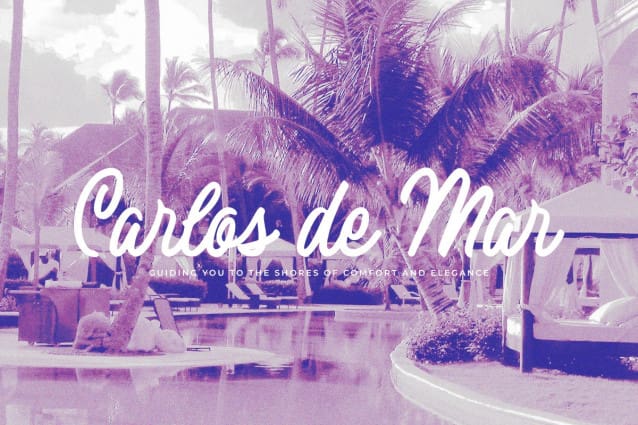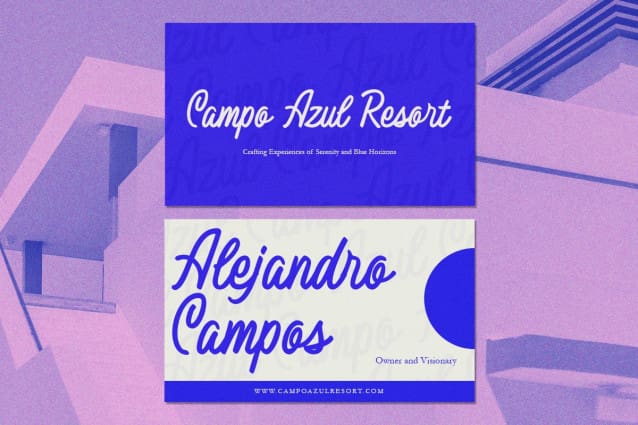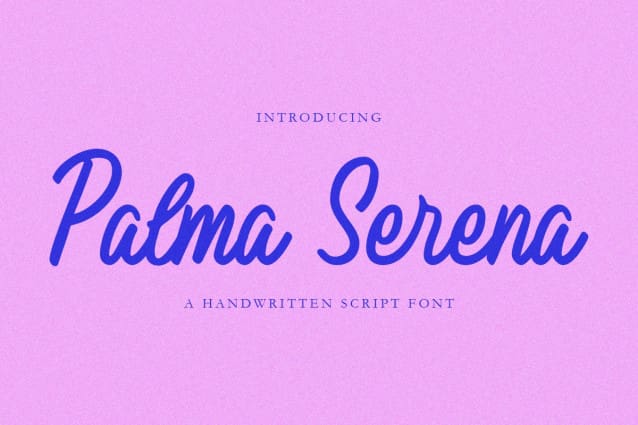
Palma Serena Font
Palma Serena Font is a handwritten script font that radiates elegance and warmth, making it ideal for creating timeless and personable designs. With its smooth curves and organic flow, this font is perfect for branding, invitations, greeting cards, logo designs, and more. Its delicate strokes give it a sophisticated yet approachable look, ensuring versatility across a range of creative project purpose.